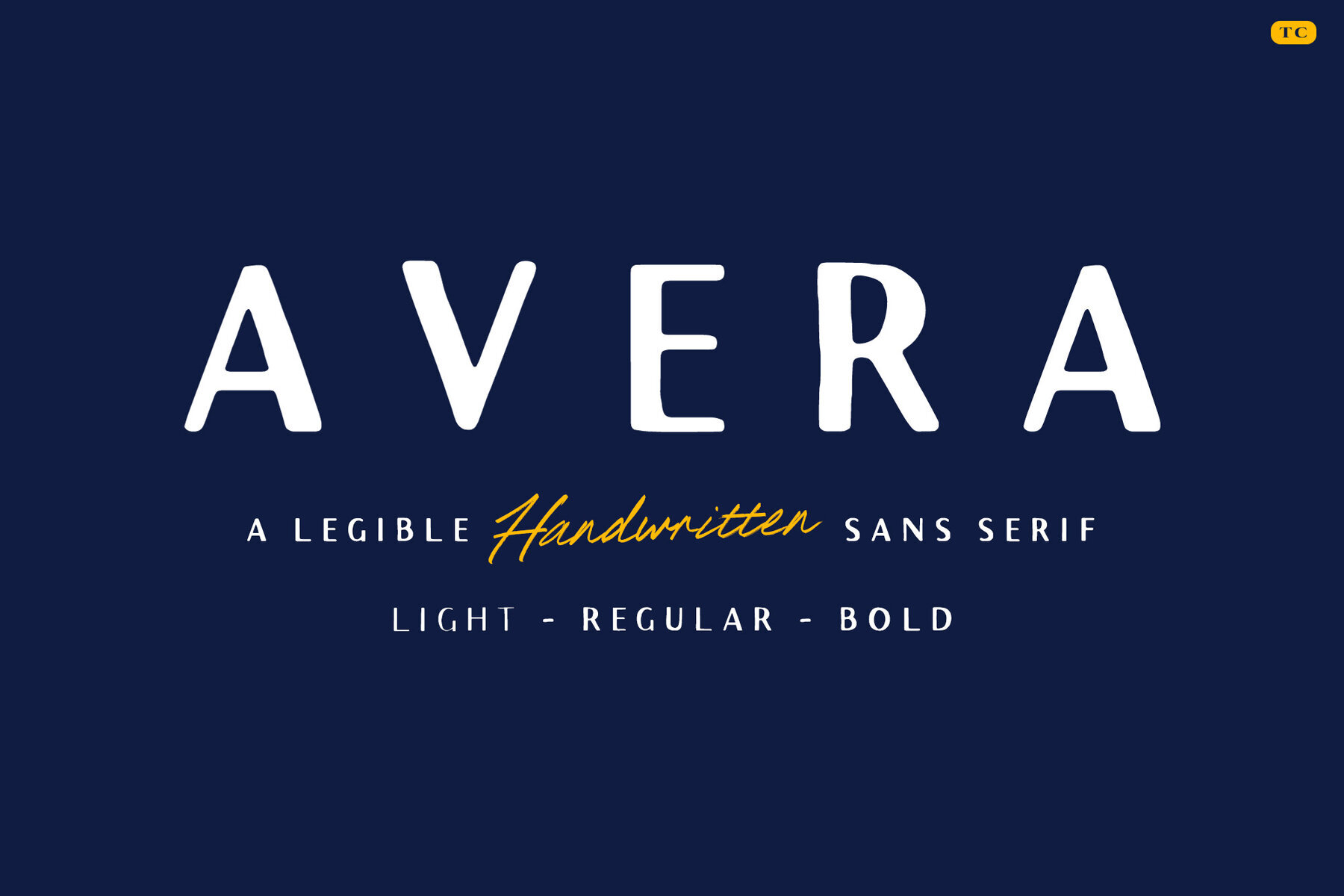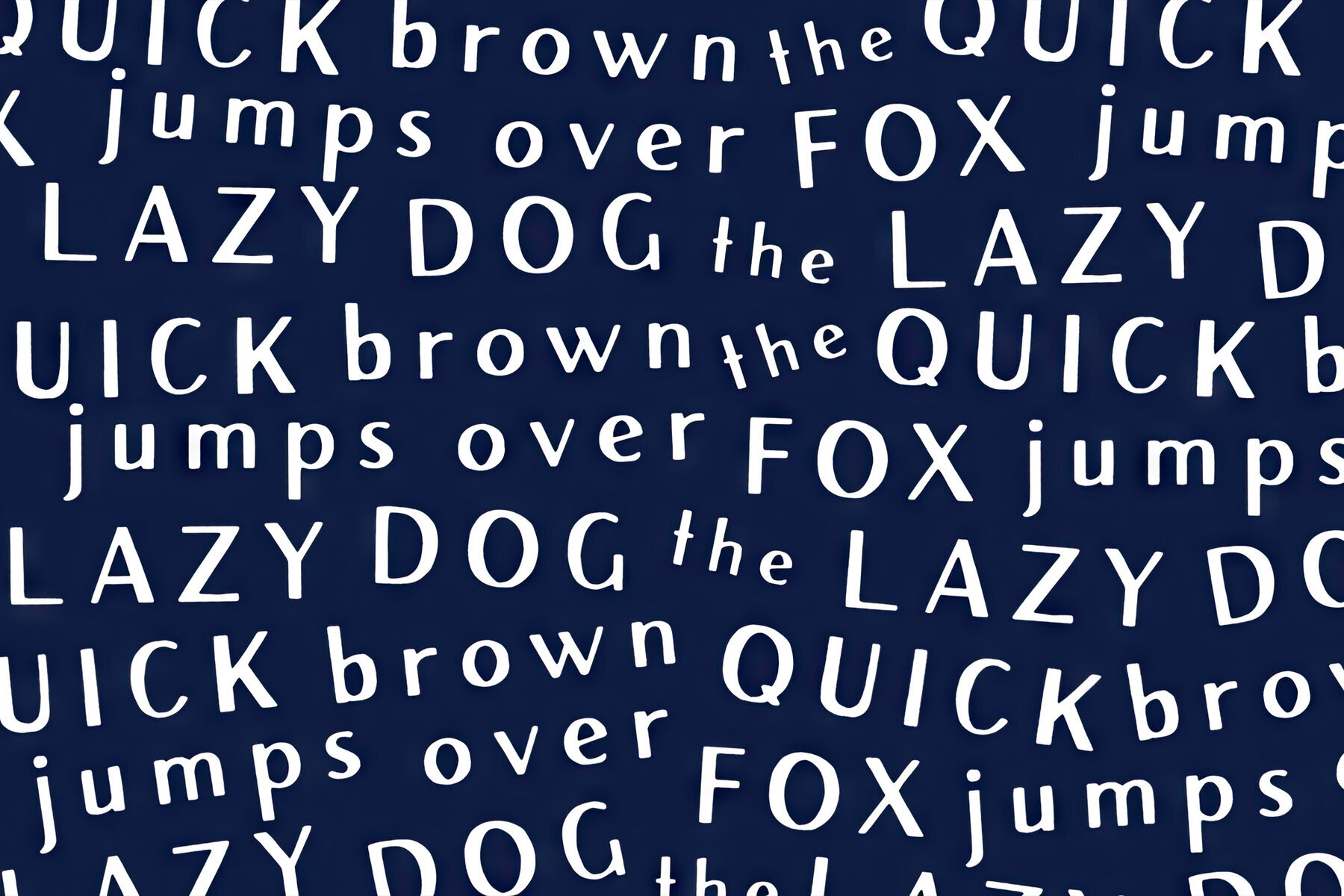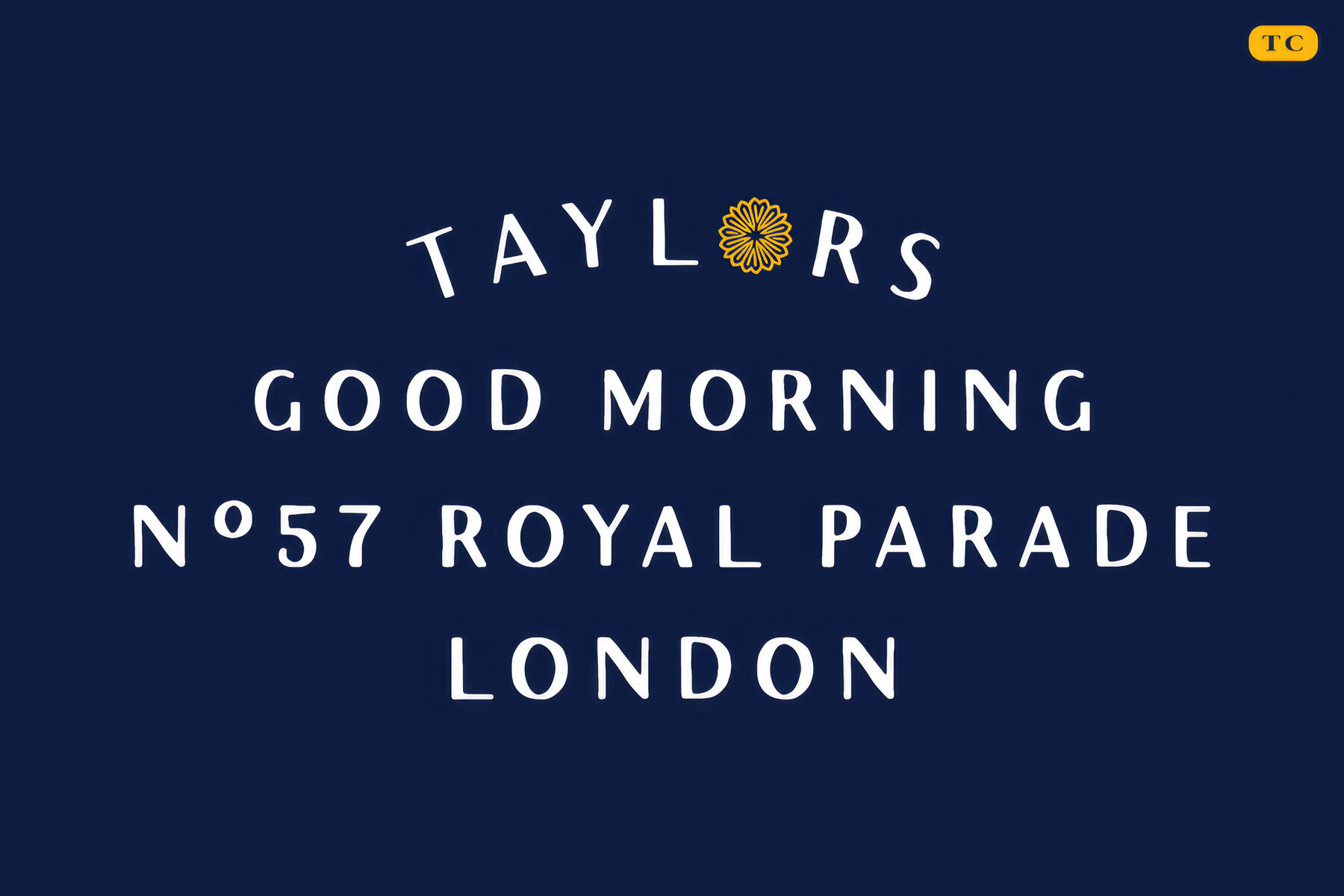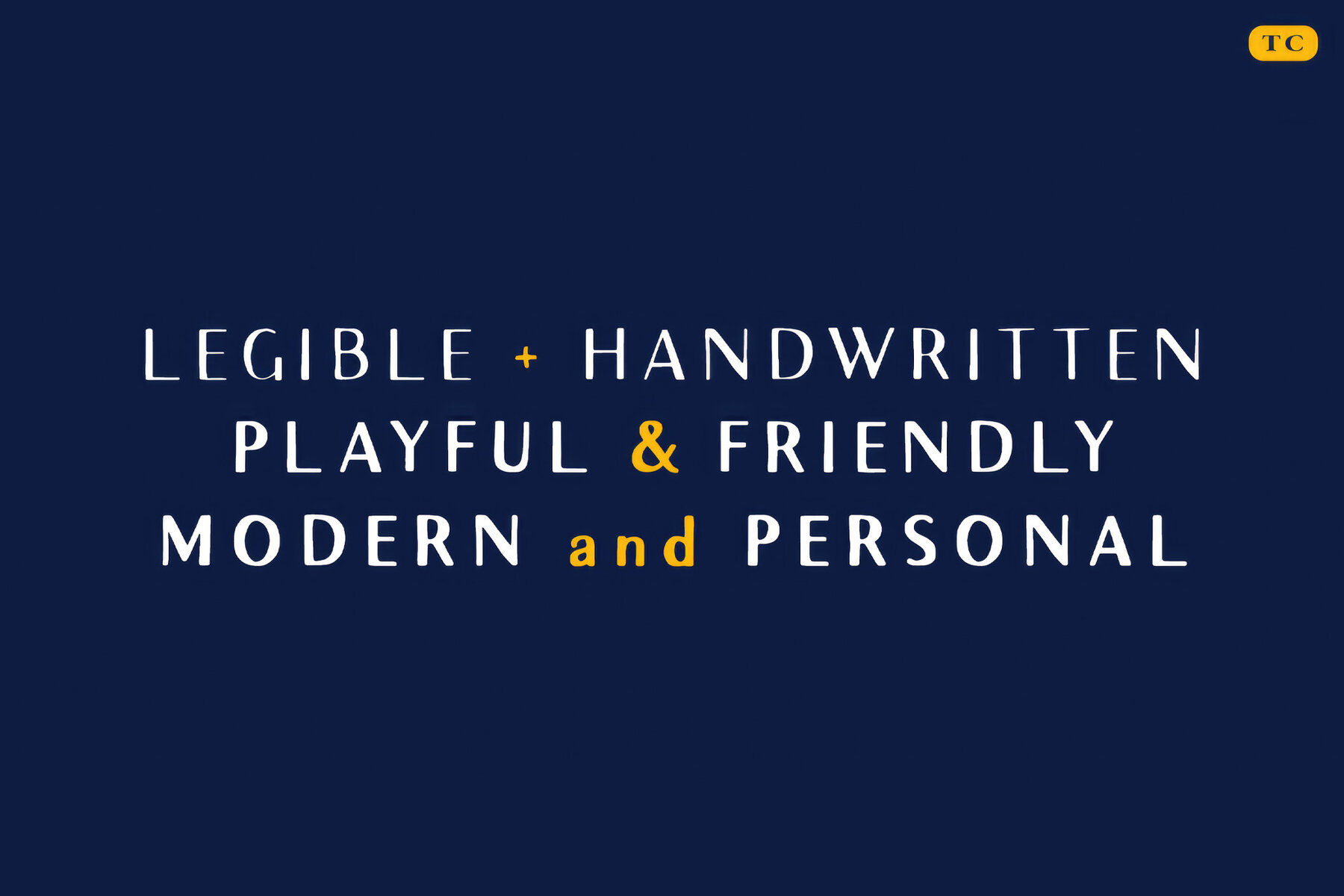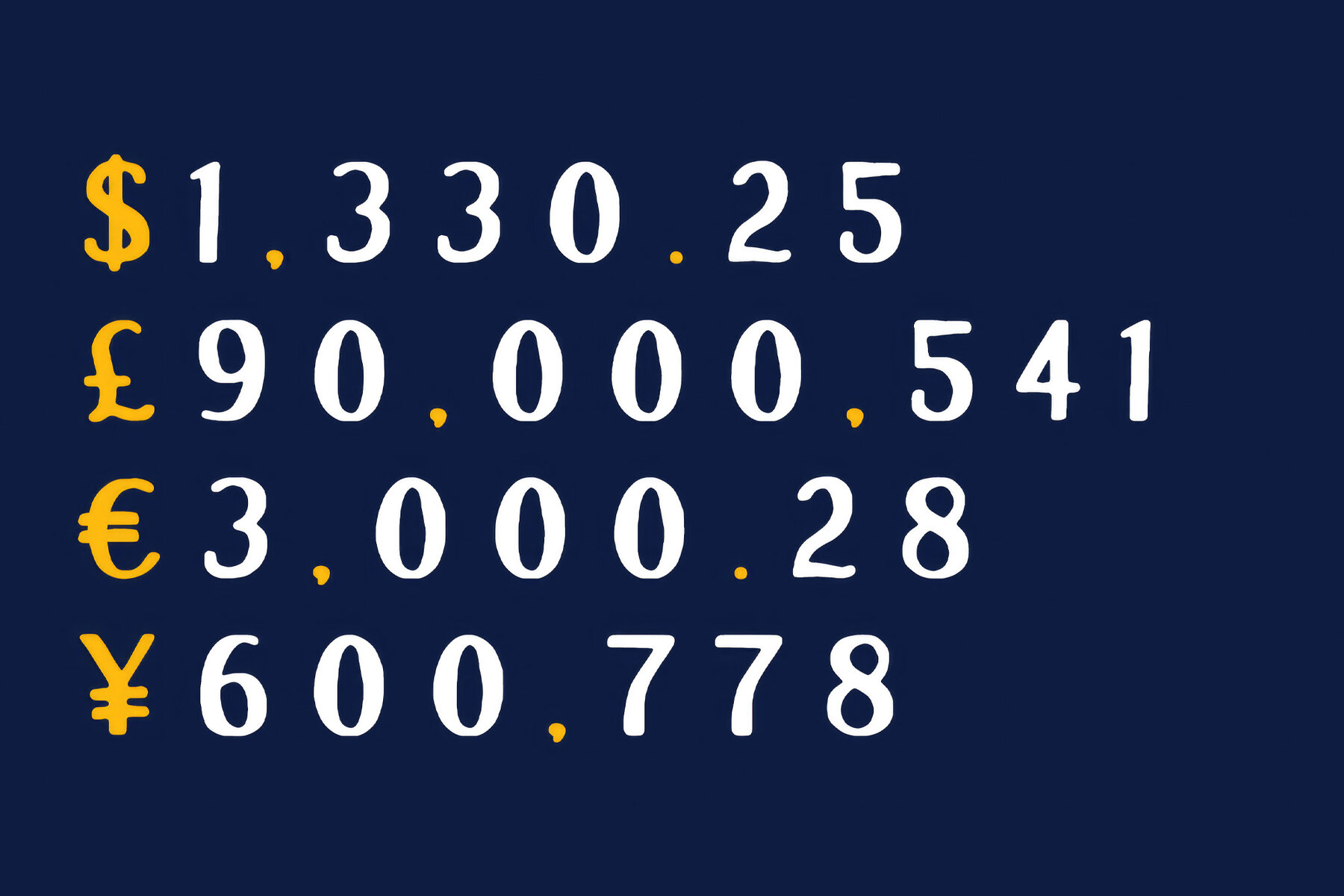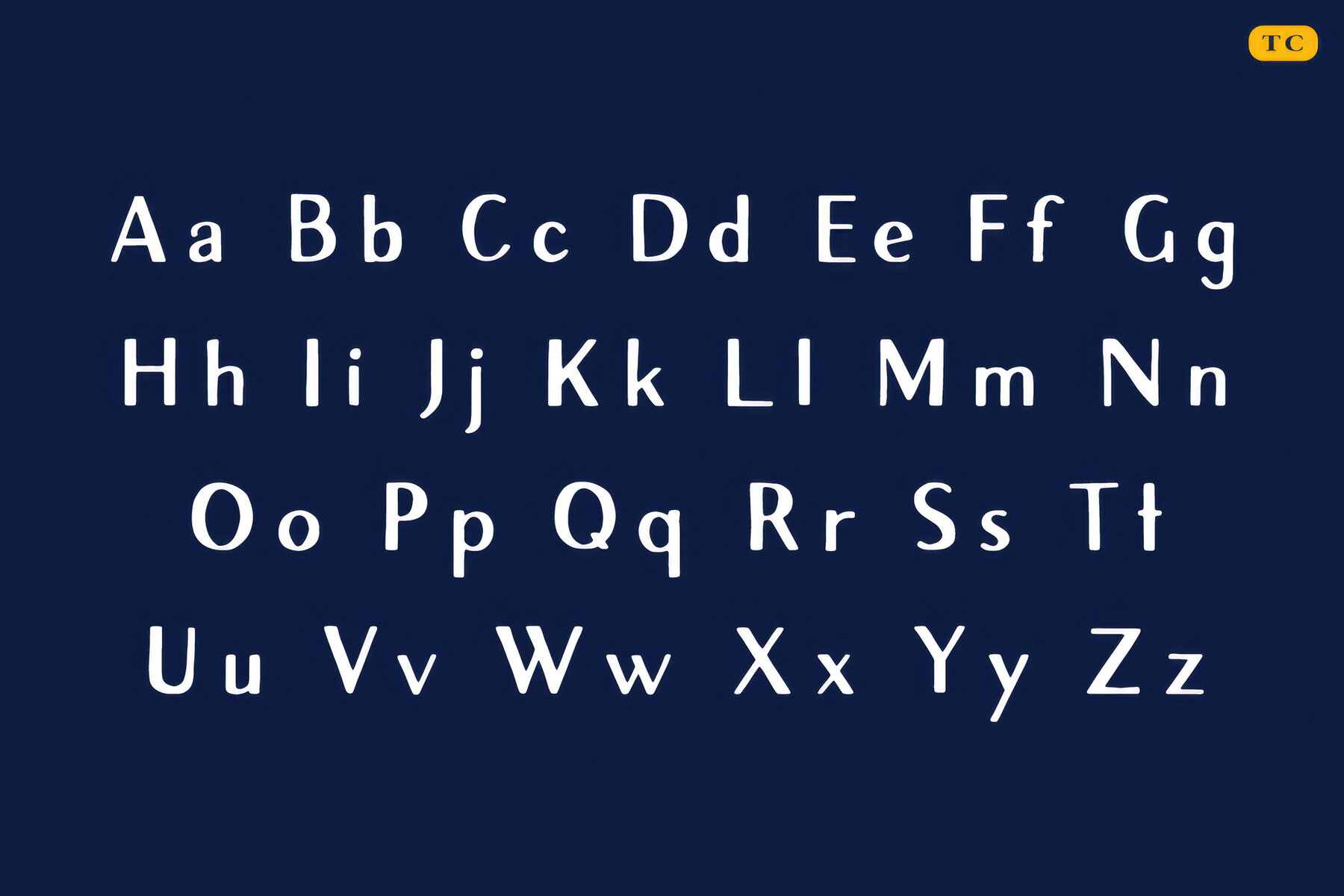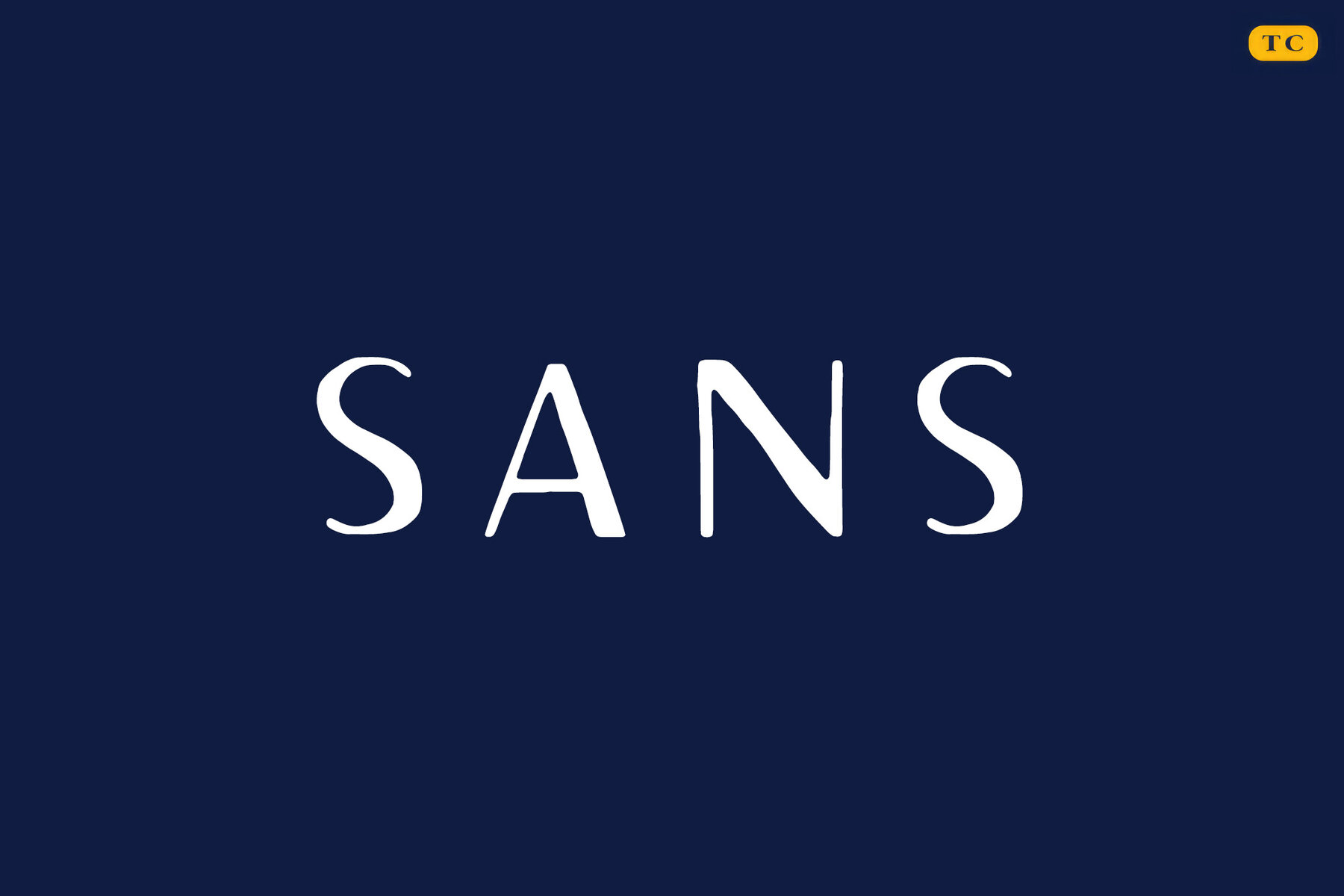
Avera Sans 1
Introducing the new and improved Avera Sans font family. Within this handcrafted family you'll find light, regular and bold weights with an extended glyph range. Avera Sans is a great display font that looks good big or small and is perfect for poster design, logo design, apparel design, etc.
Bonus Sketch Font!! Also included in the family is a Sketch alternative that was entirely handcrafted with no digital touch ups. Go large with Avera Sans Sketch to truly see all the details and showcase your authenticity.